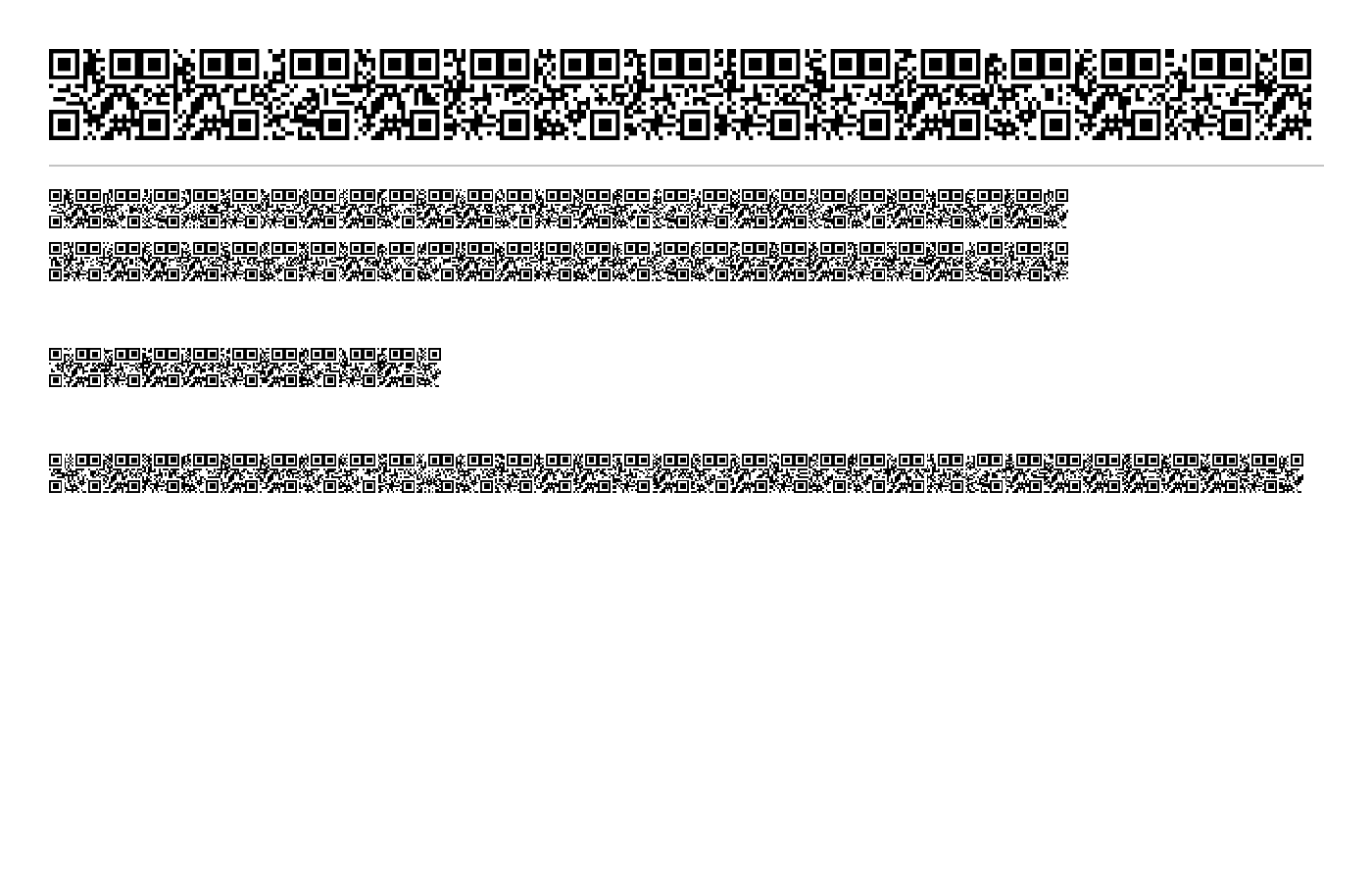
AlphanumericQR is a highly distinctive, display-style font that mimics the intricate patterns of QR codes, featuring bold, square-shaped glyphs with strong geometric precision. This unique font carries a modern, tech-inspired personality, ideal for digital branding, futuristic designs, and creative projects that want to evoke innovation and a sense of encoded information. Its complex and visually dense letterforms make it best suited for logos, headlines, and artistic use rather than extended text.
AlphanumericQR Font
About AlphanumericQR Font
| Font family | AlphanumericQR Font |
| Designer | Aydi Rainkarnichi |